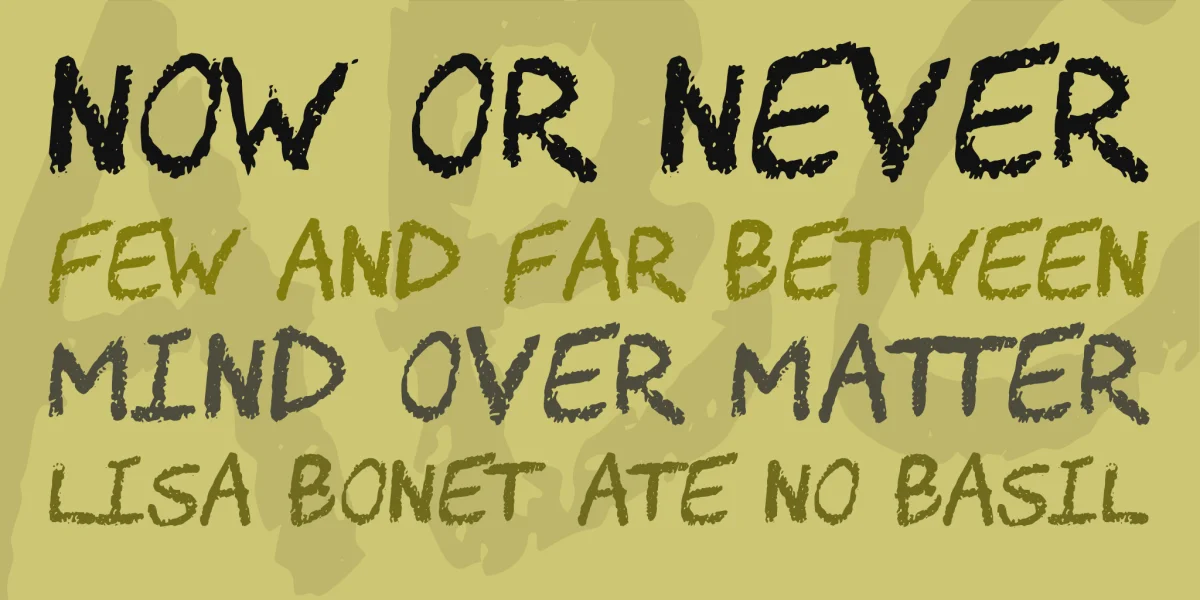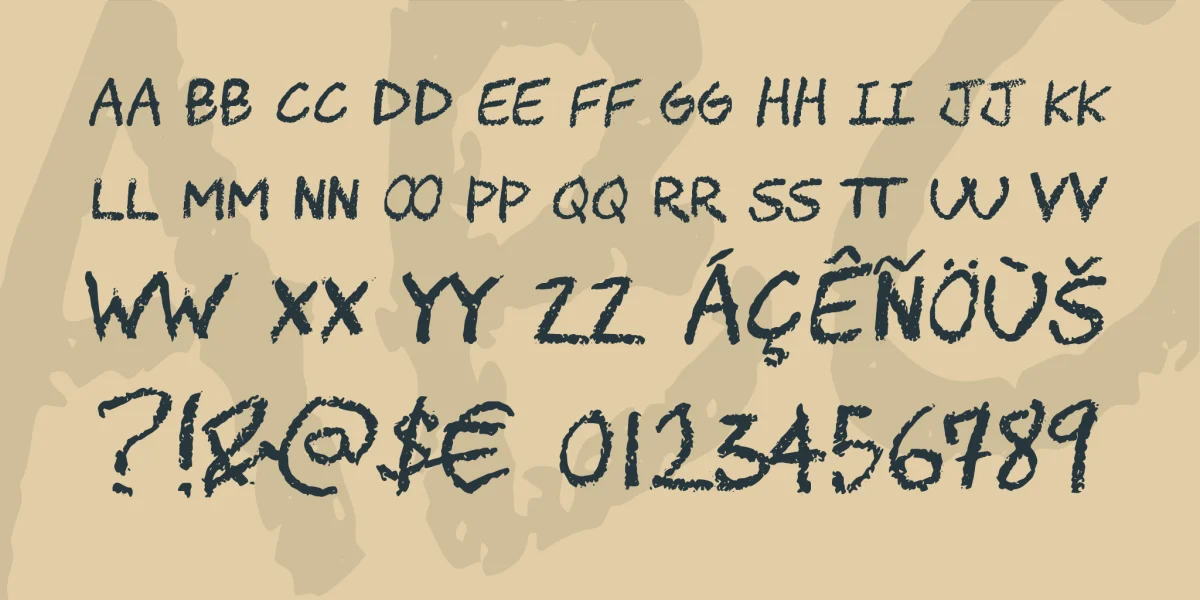
A free font, handmade from chalk on a board to vectors/pixels on your screen. Made by AWP ( www.awpny.com) via Tyler Finck ( finck.co ) More info here: www.awpny.com/chawp - Contribute via github!